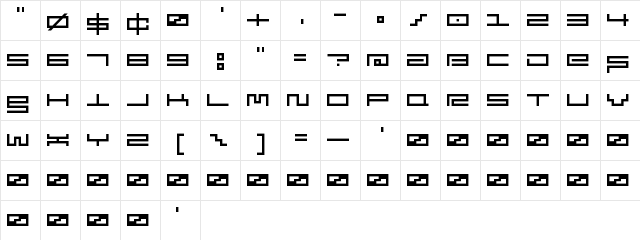
[.squarepusherv3.] Regular
Design Context for [.squarepusherv3.]
[.squarepusherv3.] is a composed and adaptable typeface that performs quietly and consistently across a wide range of design contexts.